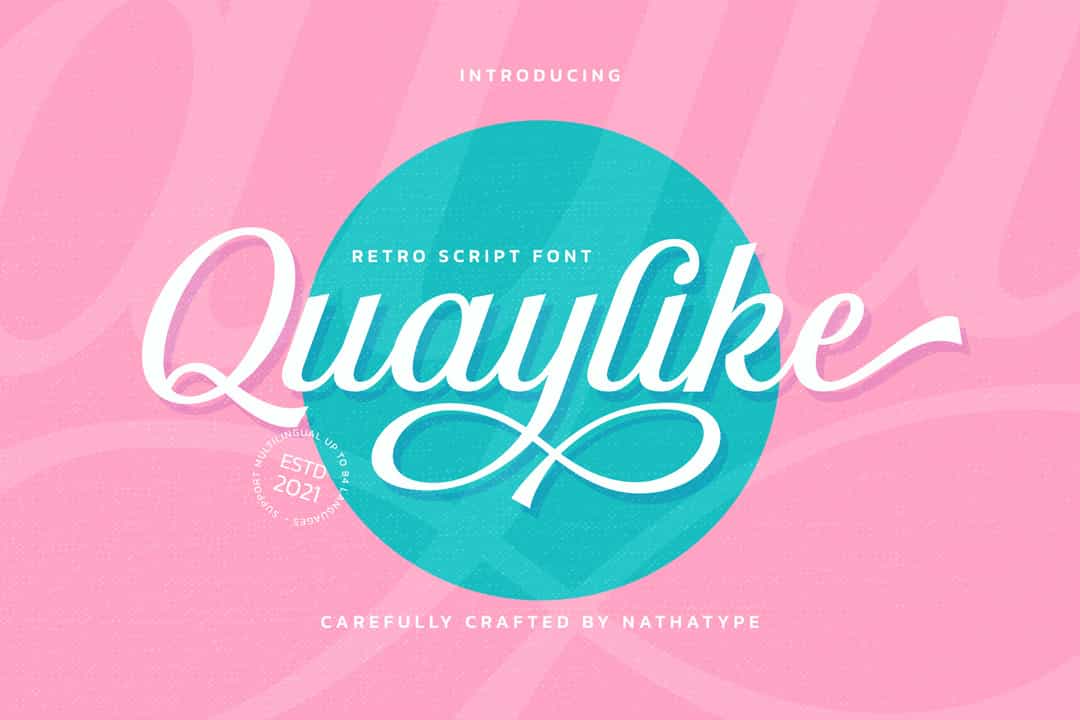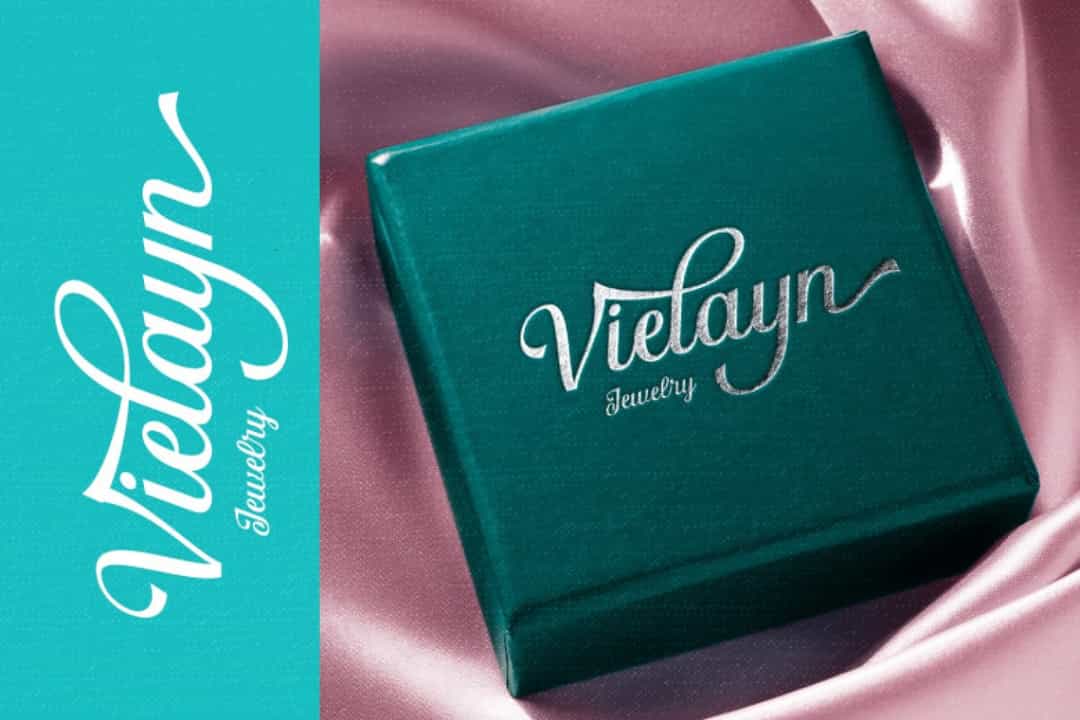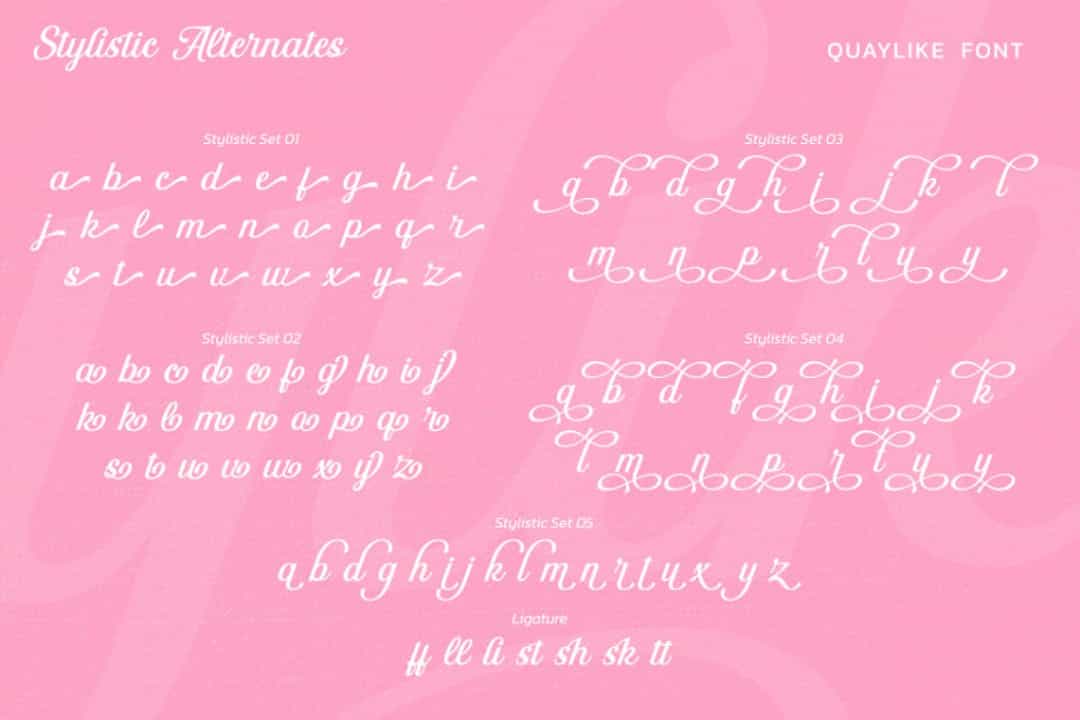
Quaylike Font
Quaylike Calligraphy Font is more than a typical script font: it is an elegant yet luxurious font featuring large letters. Creating this font takes care and precision and features handcrafted retro style techniques in its design.